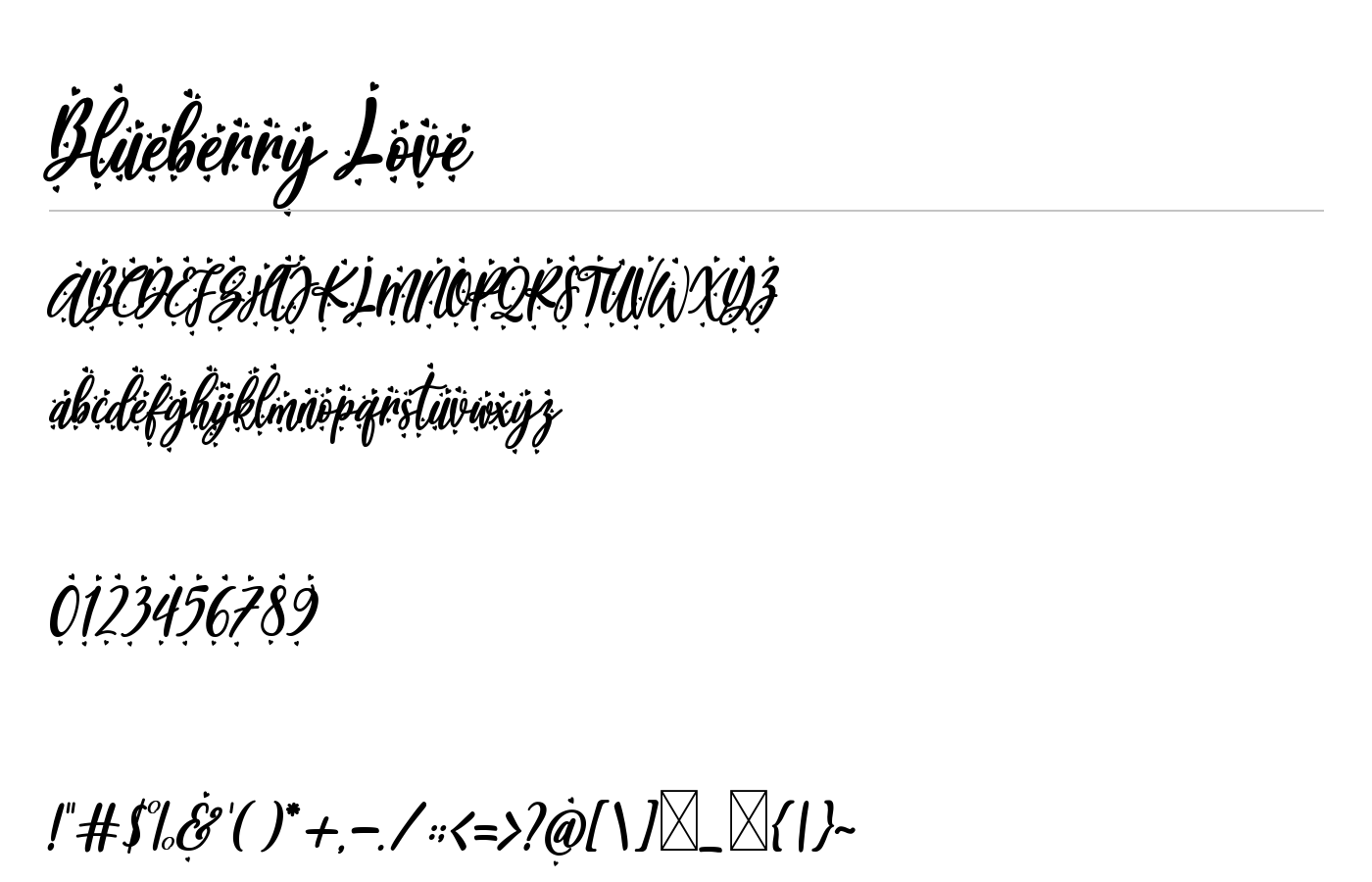
Blueberry Font is a whimsical script typeface characterized by its playful, hand-drawn style with unique heart-shaped accents that add a charming, romantic touch. Its flowing, casual strokes make it ideal for creative projects seeking a warm, friendly vibe, perfect for invitations, branding, and greeting cards where a personal and heartfelt expression is desired.
Blueberry Font
About Blueberry Font